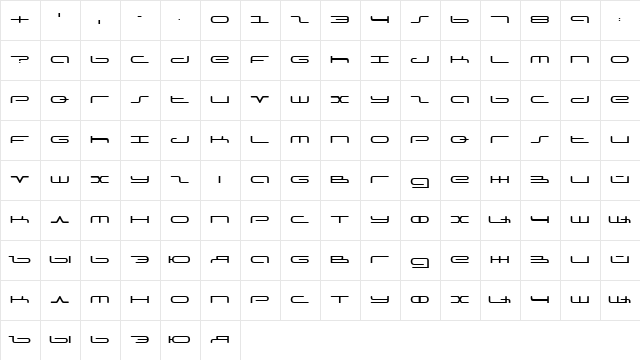
DS Podd Cyr Light
Design Context for DS Podd Cyr Typeface
DS Podd Cyr takes a measured approach to typography — its balanced proportions and neutral character make it a reliable workhorse for both digital and print work. The delicate stroke weight brings airiness and refinement to layouts.